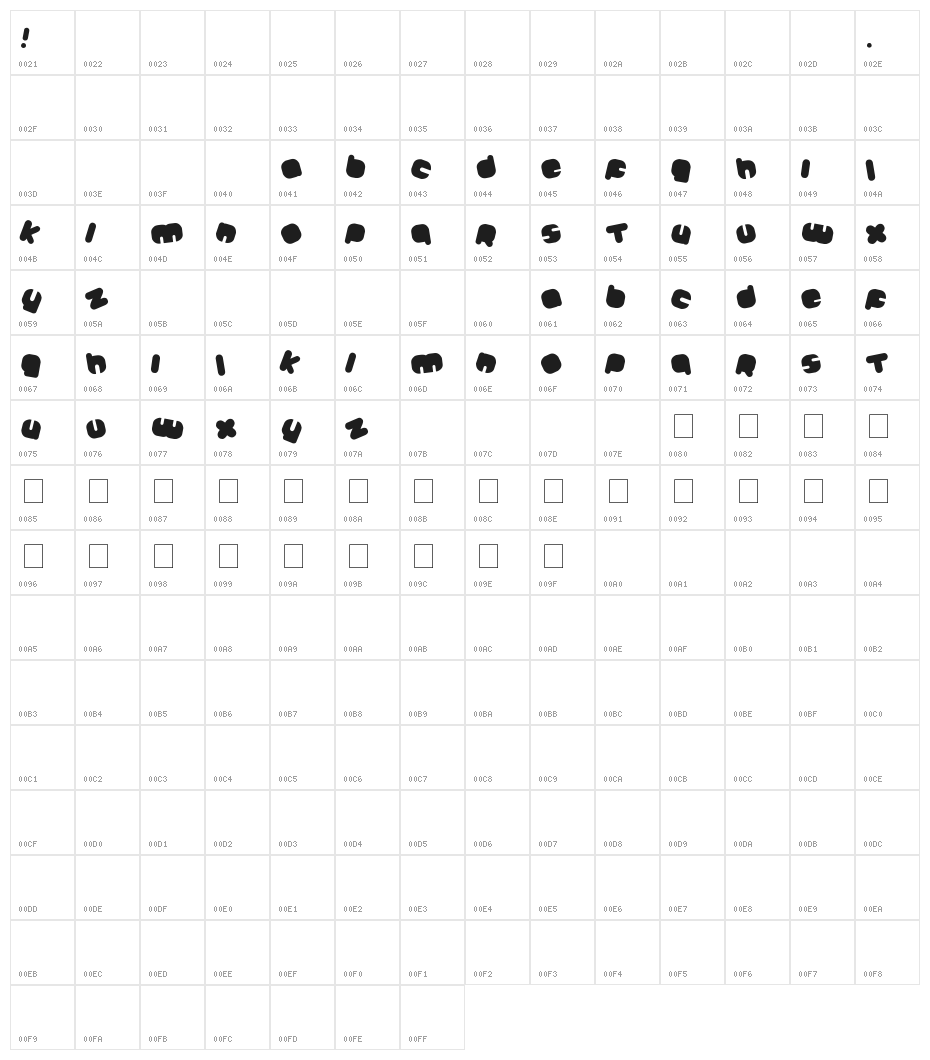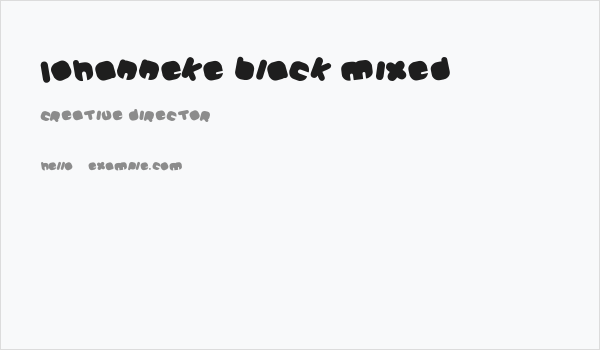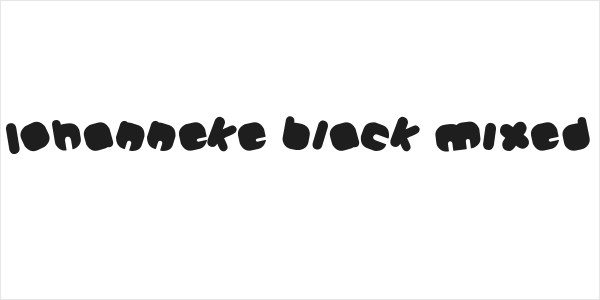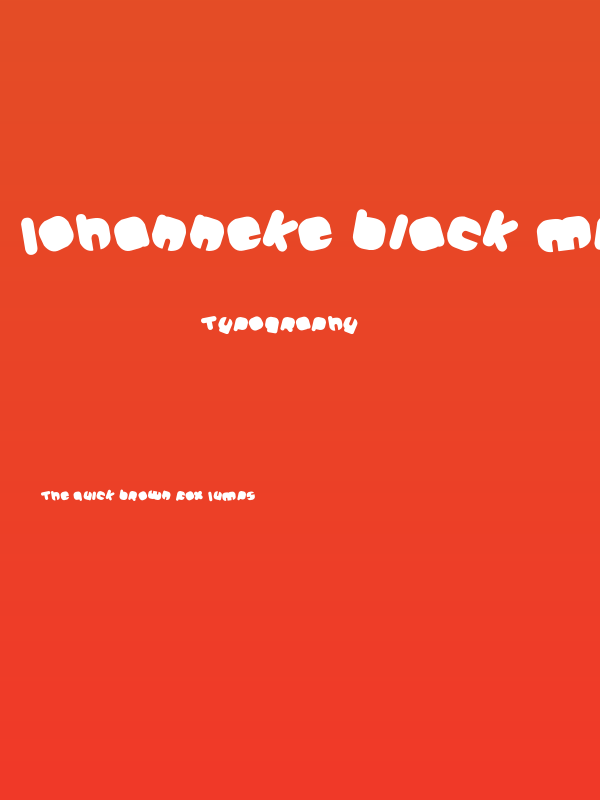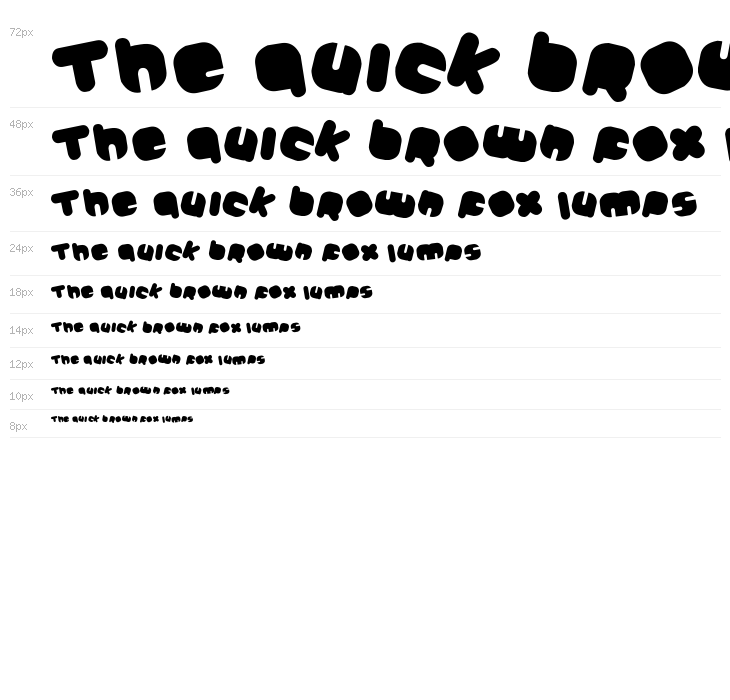
Johanneke Black Mixed Font
Johanneke Black Mixed Description
This font features a bold and playful design with thick, rounded characters that give it a whimsical and fun appearance. The letters are heavily weighted, creating a strong visual impact, and the overall style is informal and lively. The characters have a slightly irregular shape, adding to the playful nature of the font. It lacks traditional serifs, emphasizing a modern and casual look. The font is suitable for creative projects that require a touch of personality and boldness.
| Overall Style | Playful, Modern |
| Proposed Projects | Ideal for children's books, playful branding, posters, and creative social media graphics. |